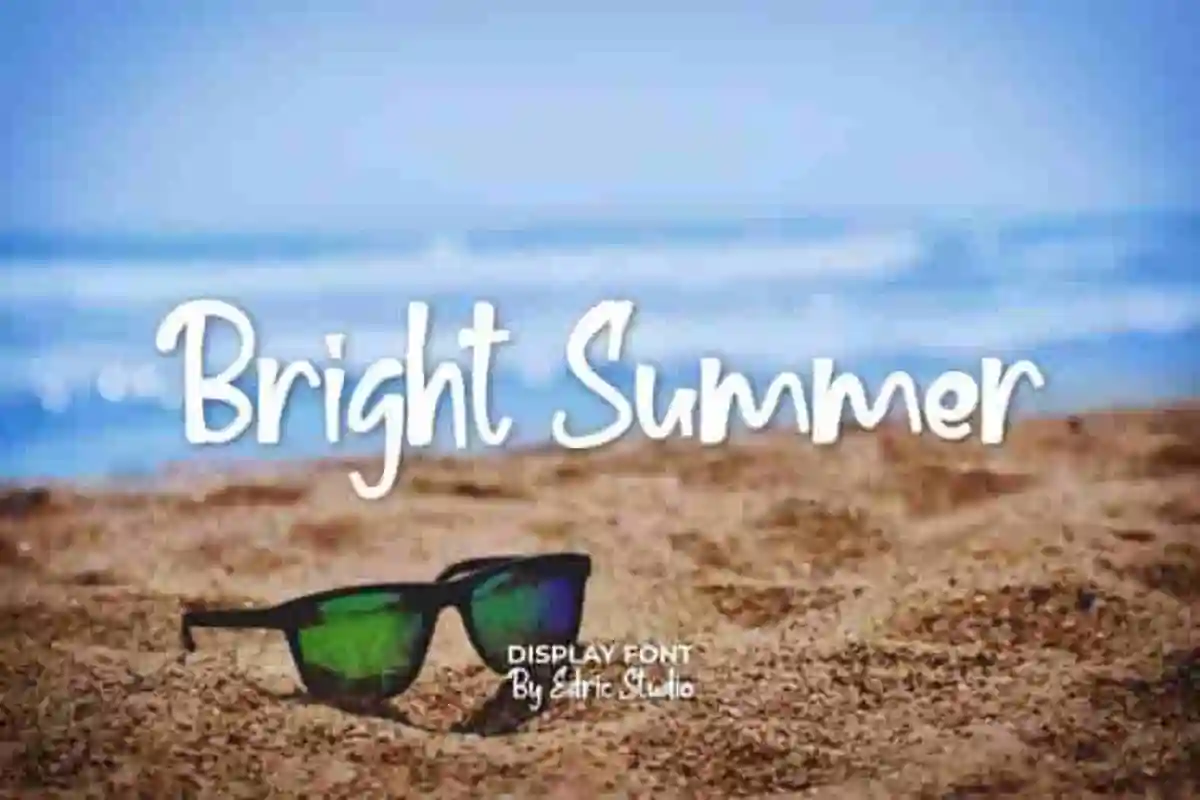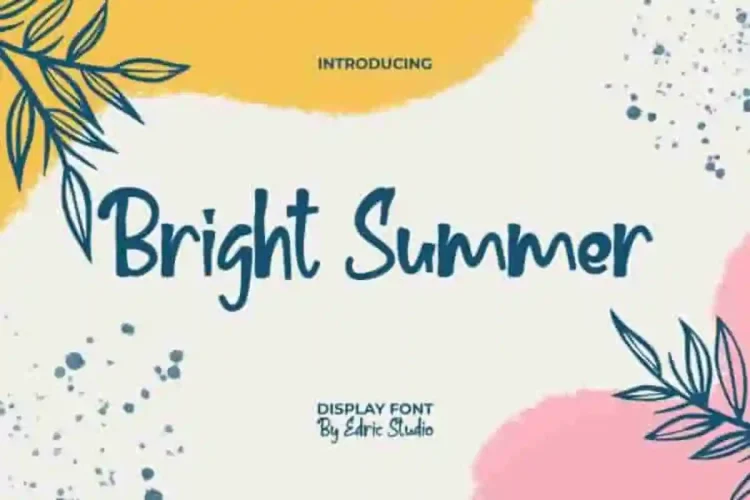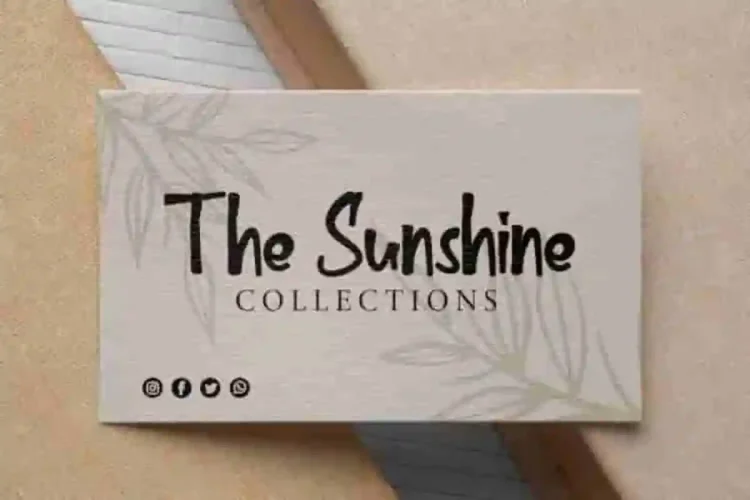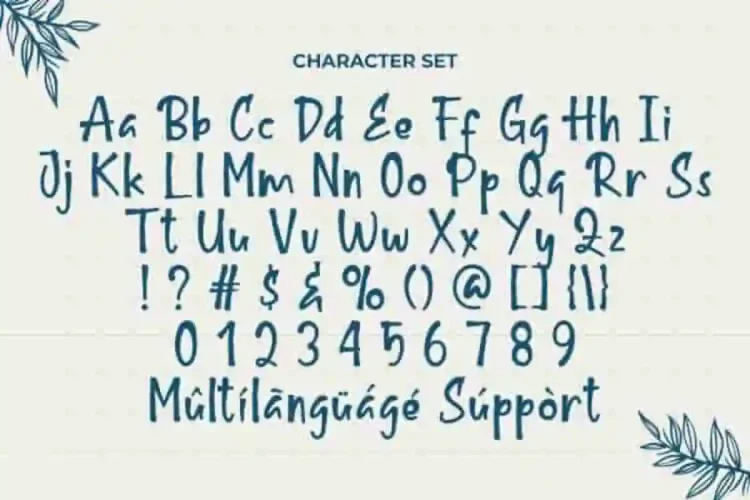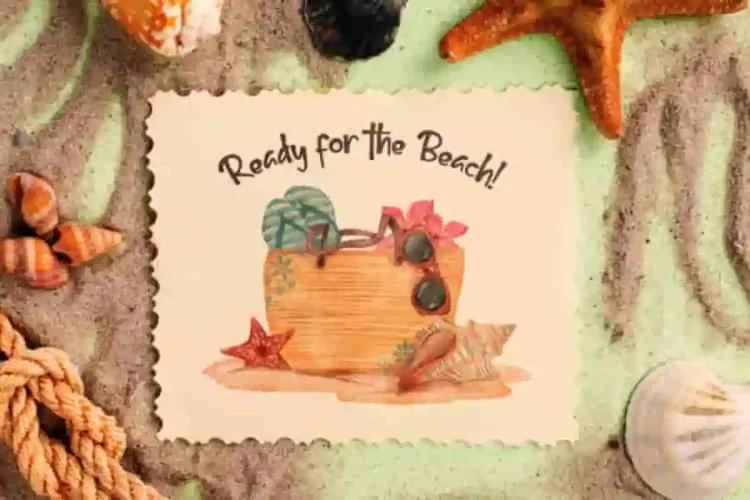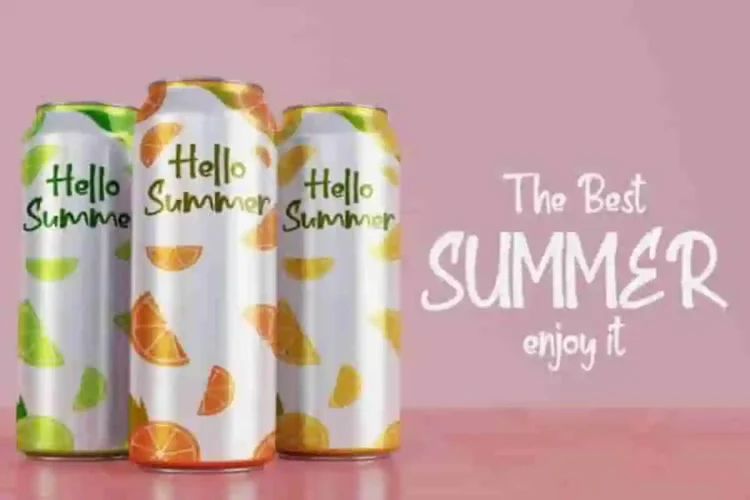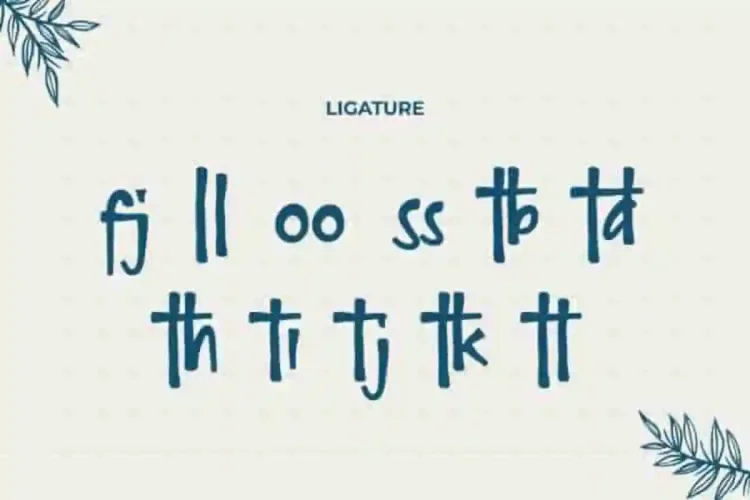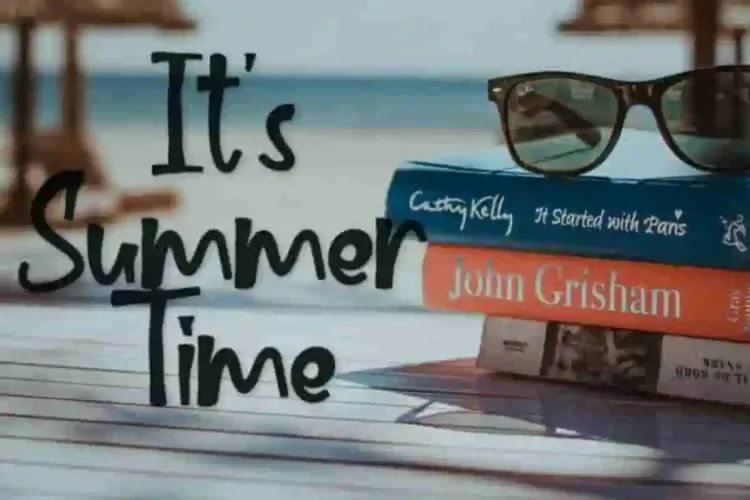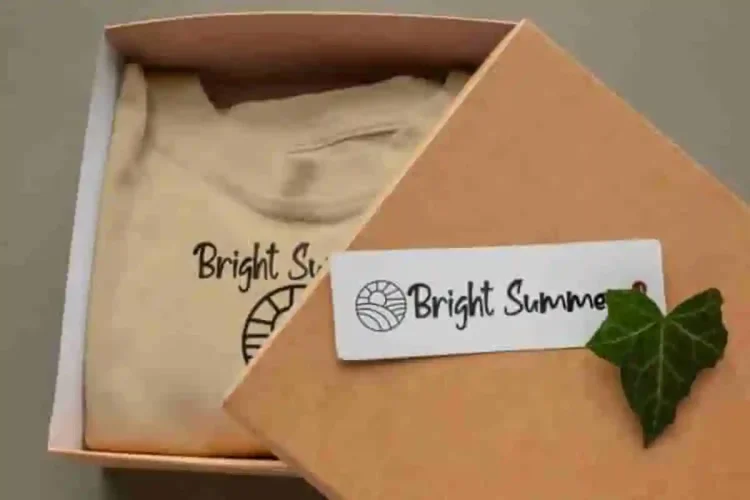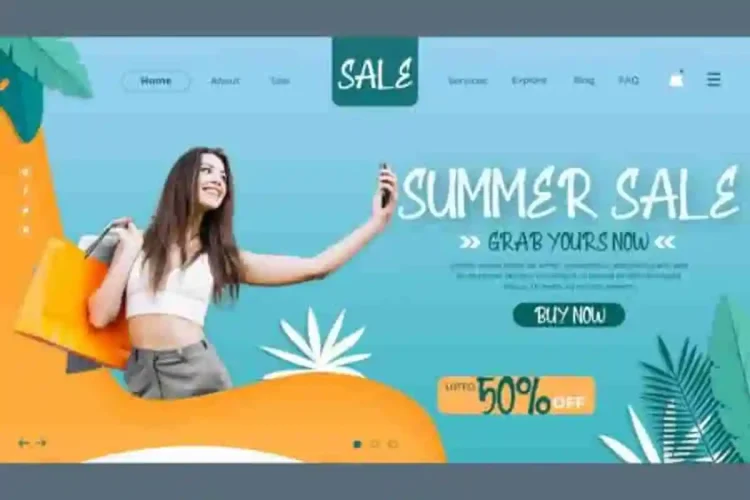
Bright Summer Display Font
Bright Summer Display Font is a handwriting display font. This font will be perfect for logo branding, lettering, products packaging, signage, title etc. This font combines a playful spirit with clean readability, making it the perfect choice for designers and creatives who want to add a personal and stylish touch.
Bright Summer Display Font With its smooth strokes and casual handwriting feel, Bright Summer Font works wonderfully for logo branding, product packaging, invitations, signage, posters, titles, and social media graphics.